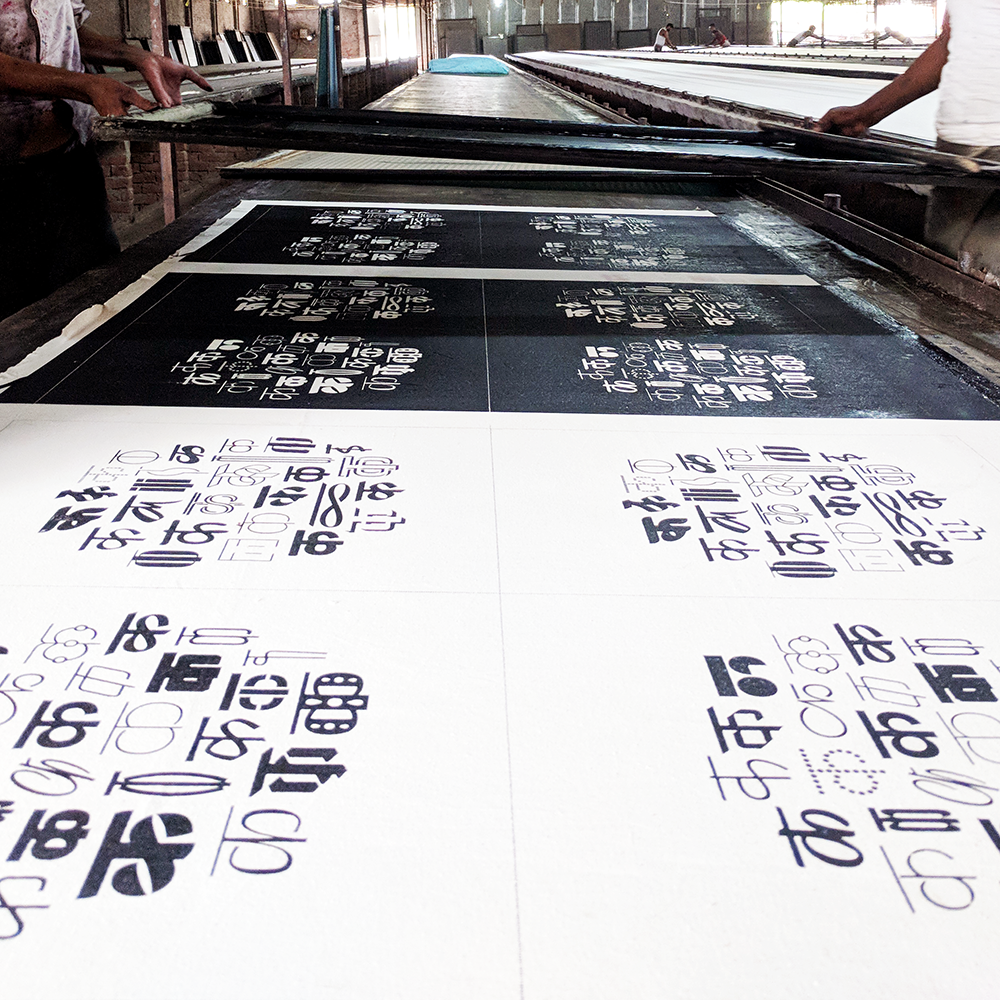
Matra Type Draws Ka
A few years ago I embarked on a year-long exercise to draw the letter “ka” in a different style every week in response to a friend’s tirade about the limited types of styles that can exist in Devanagari.
Most weeks, I set myself a brief. The first ka above was neon-inspired, and it was drawn when I was at the height of preparation for my Paharganj Type Walk and reading a great deal about neon signs. The brief for the second one was to draw something burly and brawny. For the last one, I wanted to capture the spirit of science fiction.
Some designs were inspired by interesting styles seen on street lettering. For instance, the incomplete, semi-circular counters in the sign for Tikamdas Menswear in Mumbai, made for charming Devanagari letters.
Yet another source of ideas was old decorative Latin designs, such as Alex Stocker’s design La Jeunesse (1954), which I adapted to Devanagari.
Finally, I enjoyed playing with abstraction, and pushing the letter to its limits of recognition.
The project was a tremendous exercise in discipline. I like to believe that I am pretty disciplined having worked from home for over five years now. But discipline was not what it was only about. Keeping the ideas flowing week after week was a challenge, as was being prepared for planned and unplanned interruptions to life.
Towards the end of the year, I thought about creating myself a tote bag with all the different letters I had drawn — a reminder of a self-initiated project completed! The idea of the tote bag struck a chord with others. And so, with the help of Aarika Solanki , a small batch of bags were screen-printed in Jaipur.